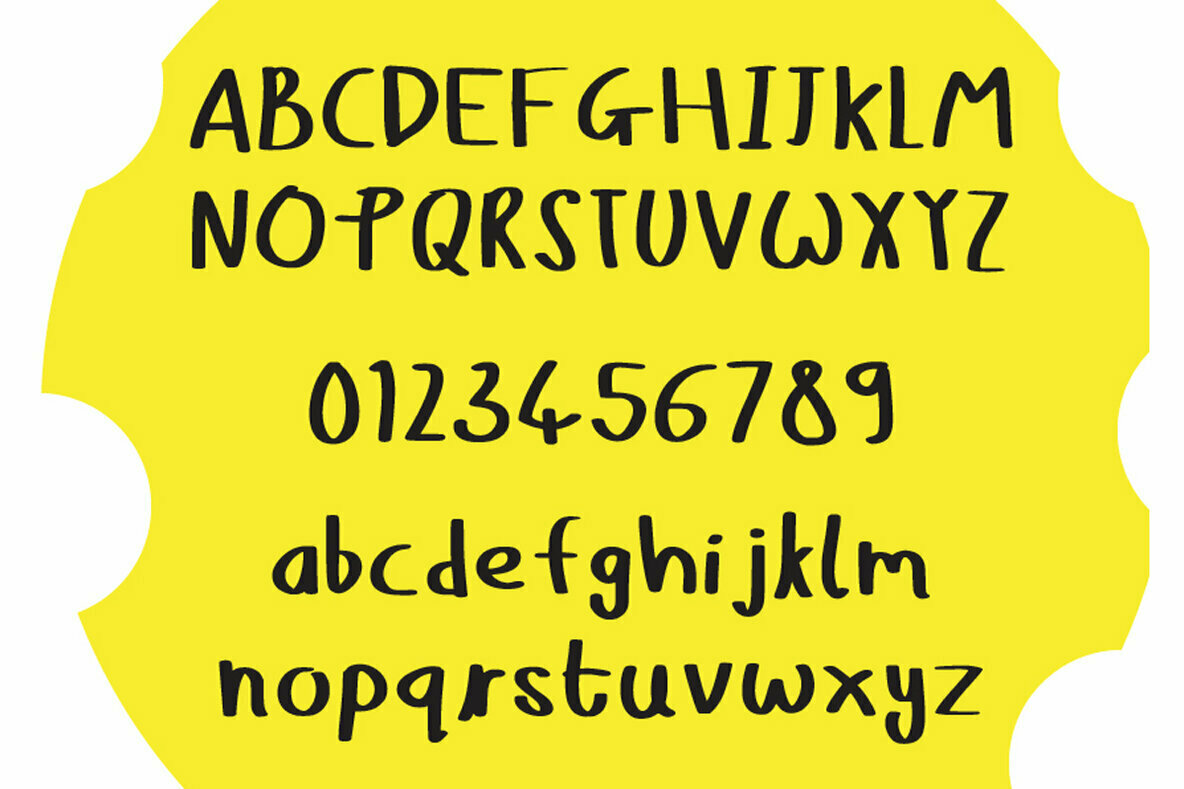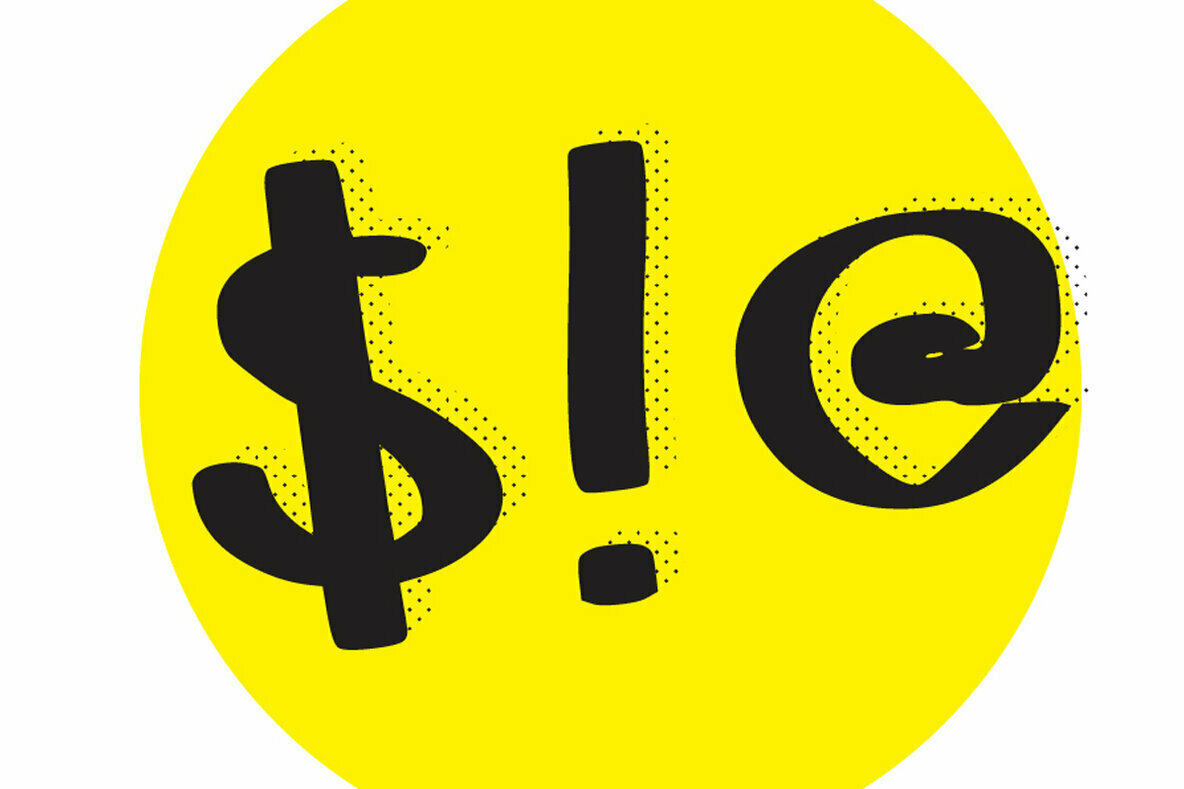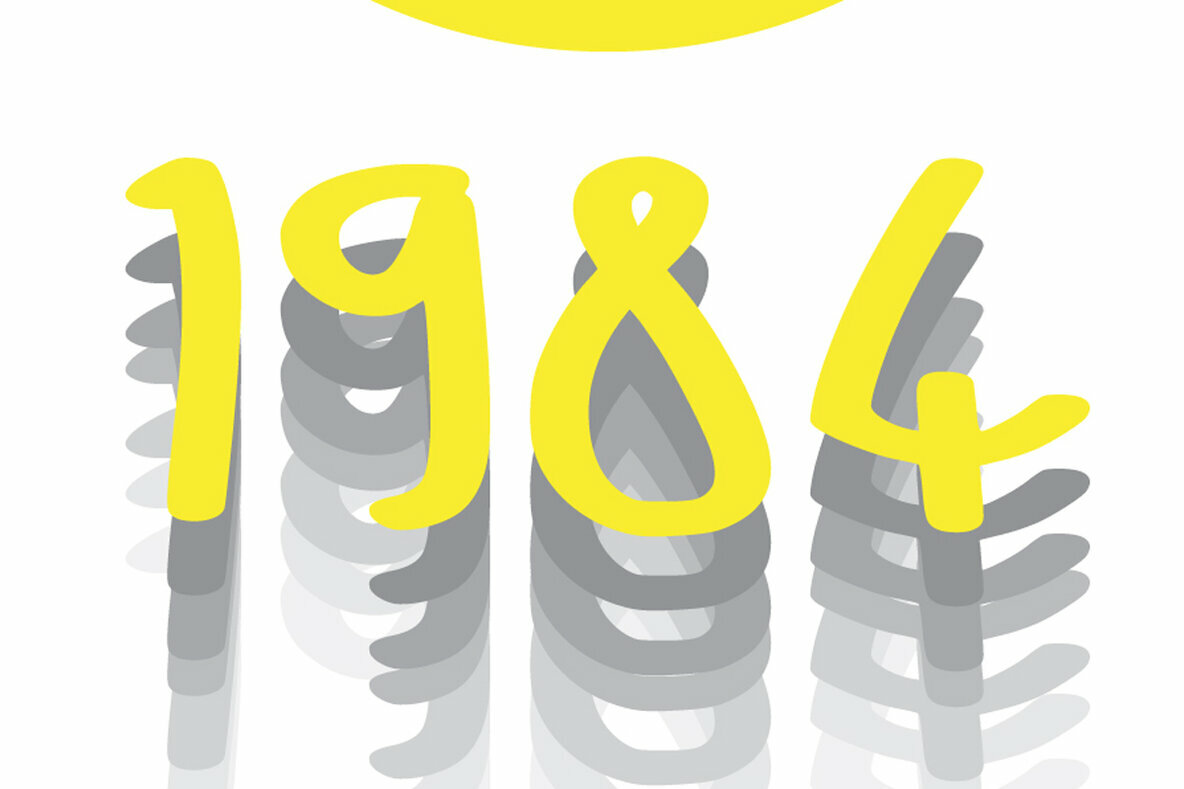
My Fat Hand Font
My Fat Hand font is a wonderful font bursting with character! It features a balance of fat and thin strokes and a style that is unmistakable fun and casual. It makes a great display font!